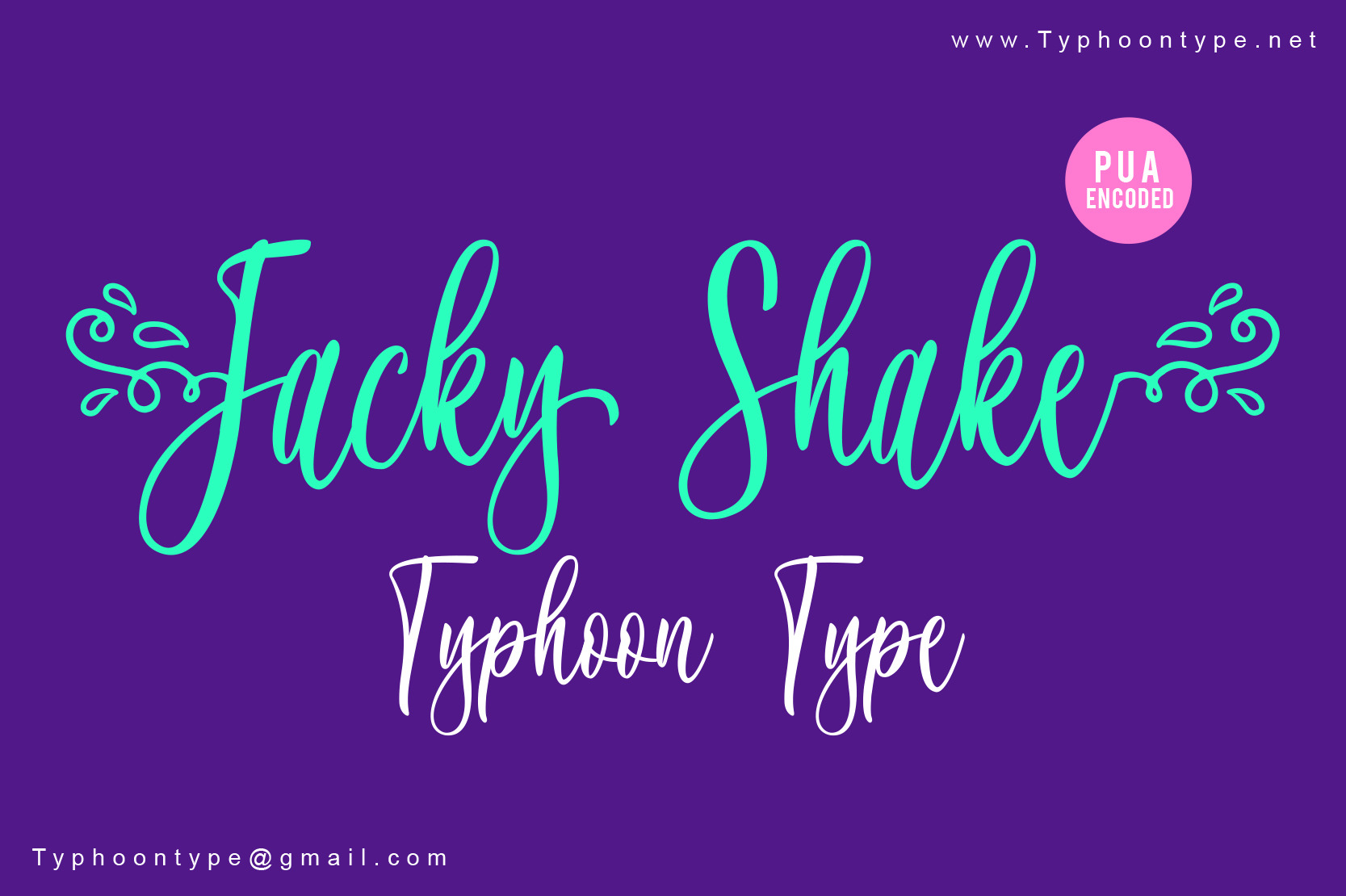
Jacky Shake font
Jacky Shake This Font perfect for logos, name tag, advertising, product packaging, clothing, social media & greeting cards.
Type ( before word to get beginning swash and Type ) after word to get the ending swash. Example : (Jacky Shake)